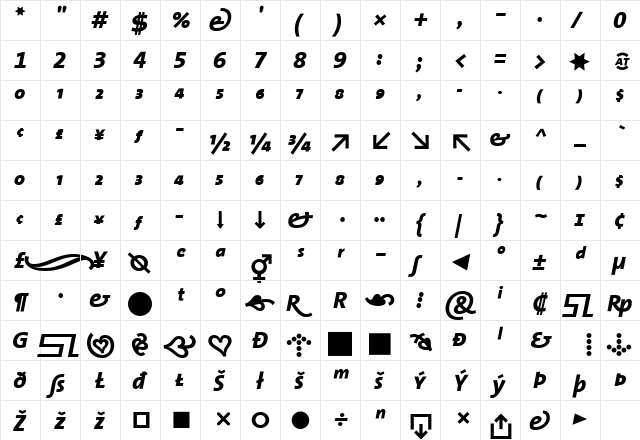
TheSans ExtraBold Italic Font Preview
TheSans ExtraBold Italic
TheSans ExtraBold Italic Font Details
| Style | ExtraBold Italic |
| Foundry | Copr. Luc as de Groot |
| Copyright | Copr. Luc as de Groot 1994 |
Design Context for TheSans Typeface
TheSans is a composed and adaptable typeface that performs quietly and consistently across a wide range of design contexts. Its italic angle brings a sense of urgency and motion to the letterforms. The heavy weight commands attention and anchors typographic hierarchies.